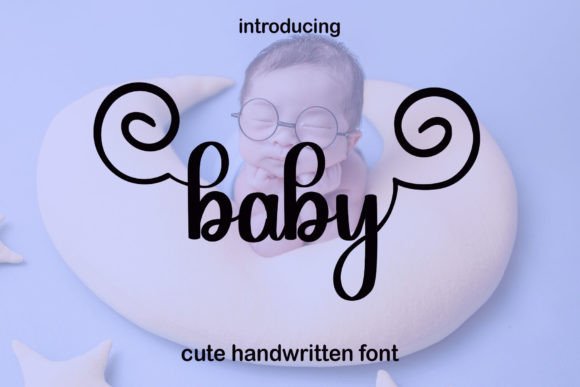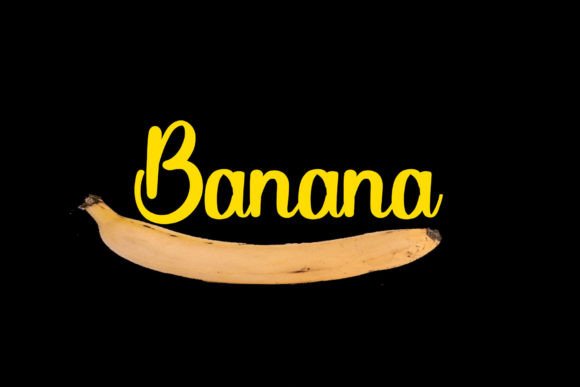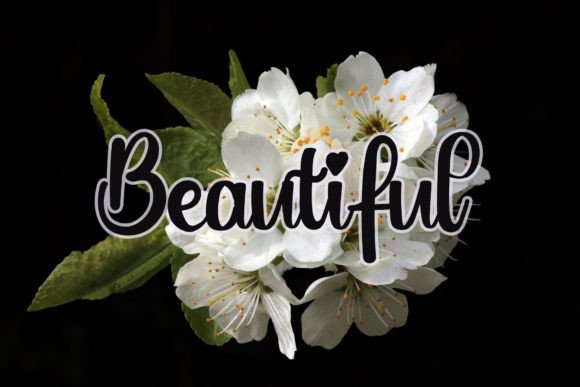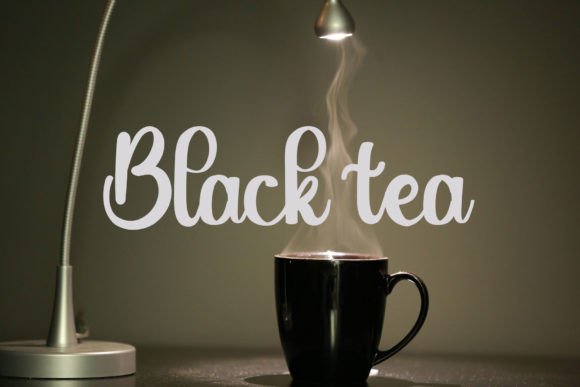
Baby Font
About Baby Font
Baby is a trendy handwritten font with a contemporary atmosphere and impeccable form, inspired by a timeless classic calligraphy. It will add elegance and class to any of your design projects.